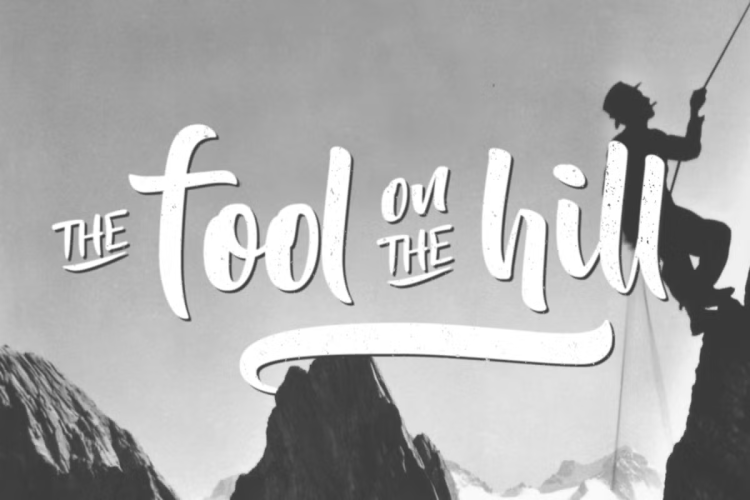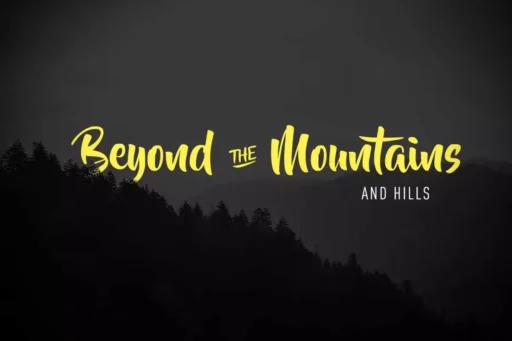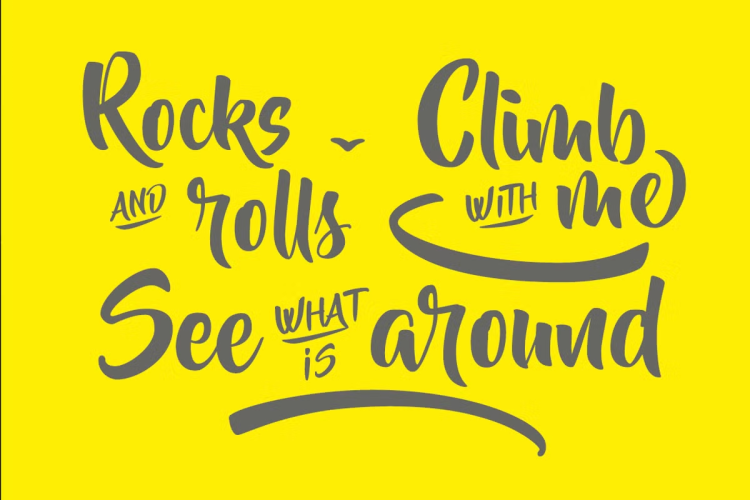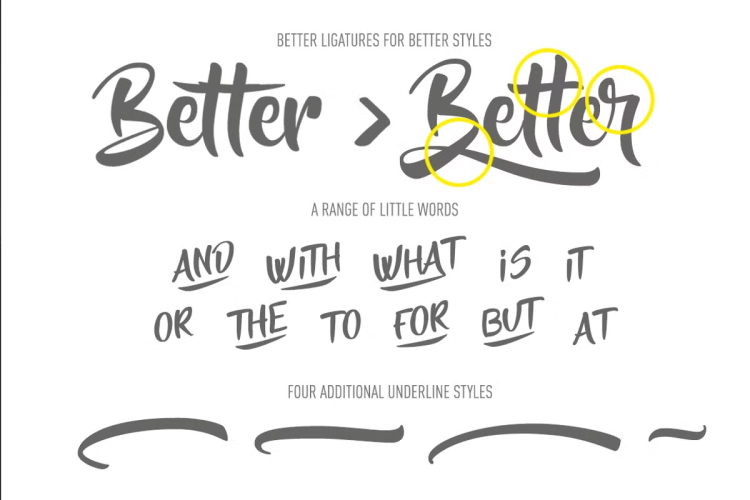
Beyond the Mountains Font
Beyond The Mountains is not just a font; it’s an artistic creation that seeks to bestow the visions of Sean Delloro, our main creative force. The chosen font has a casual script style, which is testimony to effortless charm and creativity. This font captures the essence of handwritten text in digital format.
One of the life-saving things about Beyond The Mountains is its versatility, made possible by incorporating the commercial version’s complete set of alternative glyphs and ligatures. These extra characters will give designers a creative canvas to design and customize their typography, thus taking the depth or personality of their project to the next level.
Either it’s a smooth ligature or a stylish alternate glyph. These non-essential elements create a distinct Beyond The Mountains font from a standard typeface to a vehicle of expression.
Adding alternate glyphs and ligatures enhances the scope beyond the monotonous forms and expands the creative realm. It also optimizes the quality of text in Beyond The Mountains. Designers can quickly achieve a handcrafted look and feel while still having readable and appropriate typography for the business.
For instance, the alternate glyphs and ligatures beyond the Mountain make designers go to lengths to eliminate the restrictions imposed by traditional typography and discover new worlds of imagination and creativity. This typeface overwhelms expectations; some designers use it to venture into unlimited opportunities.
Beyond the Mountains Font is a Script And Handwritten font that brings a professional and versatile look to your projects. Beyond The Mountains is not just a font; it’s an artistic creation that seeks to bestow the visions of Sean Delloro, our main creative force.